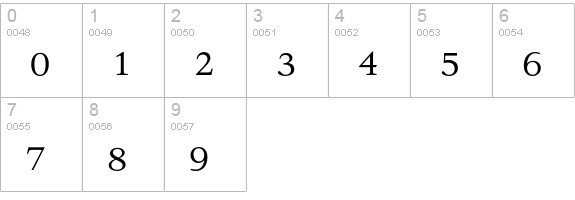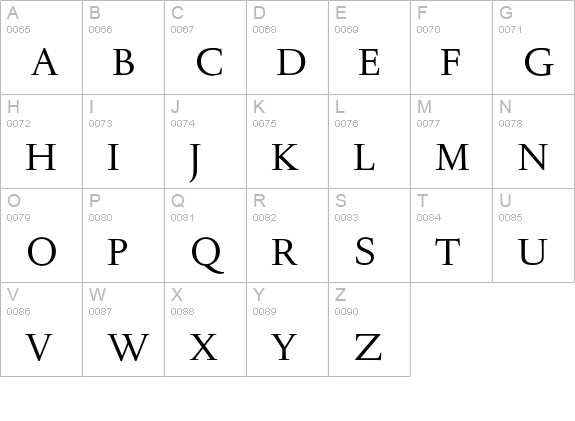
The DTL Romulus T font is a stunning typeface that embodies elegance and sophistication. Its sleek lines and timeless design make it a versatile choice for a wide range of design projects, from branding to editorial design. This font exudes a sense of classic beauty and refinement, making it perfect for conveying a sense of luxury and sophistication. What sets DTL Romulus T font apart is not only its exquisite design but also its accessibility. This font is available for free download at FontsMarket.com, allowing designers and creatives to easily access and use this beautiful typeface in their projects. With its clean lines and classic styling, DTL Romulus T font is sure to elevate any design it is used in, adding a touch of elegance and sophistication to any project.